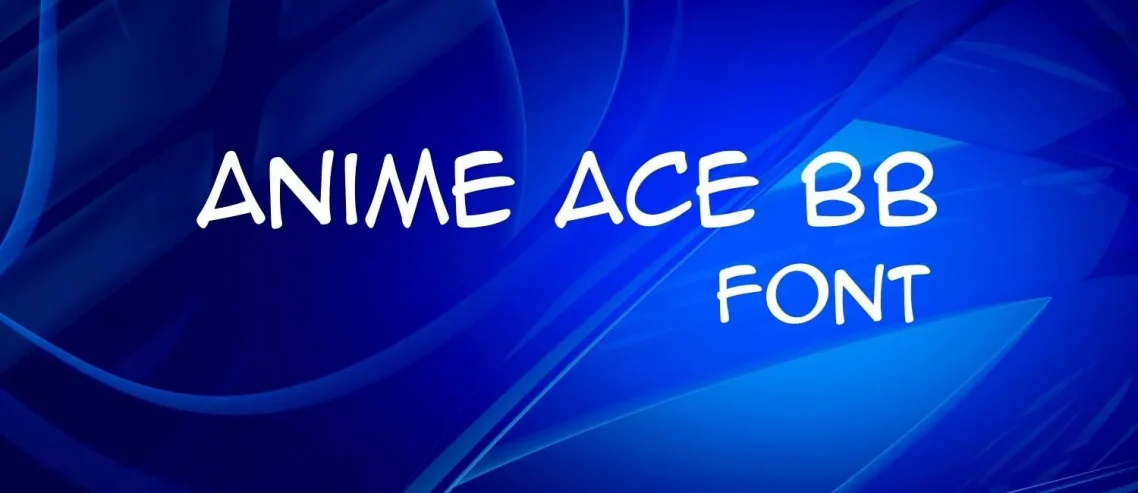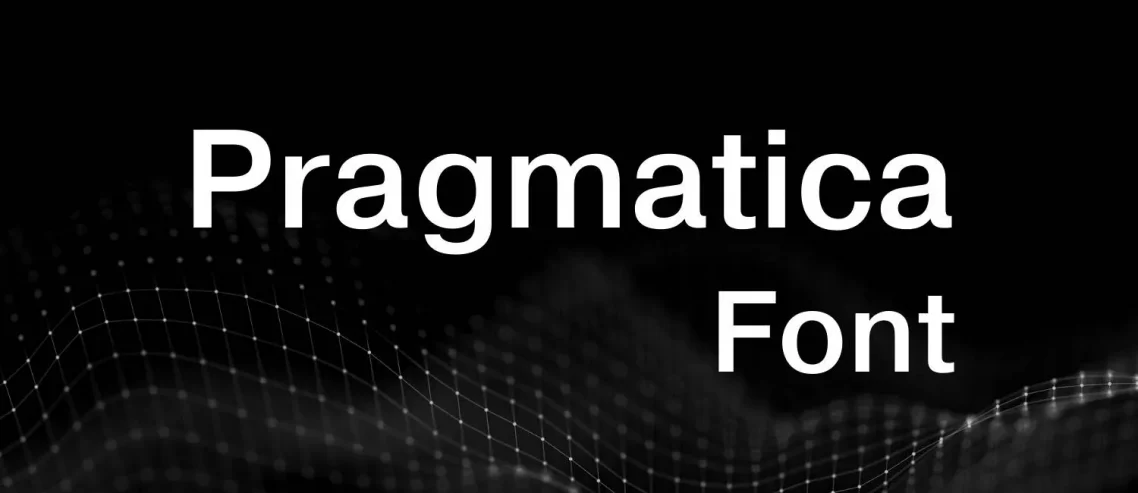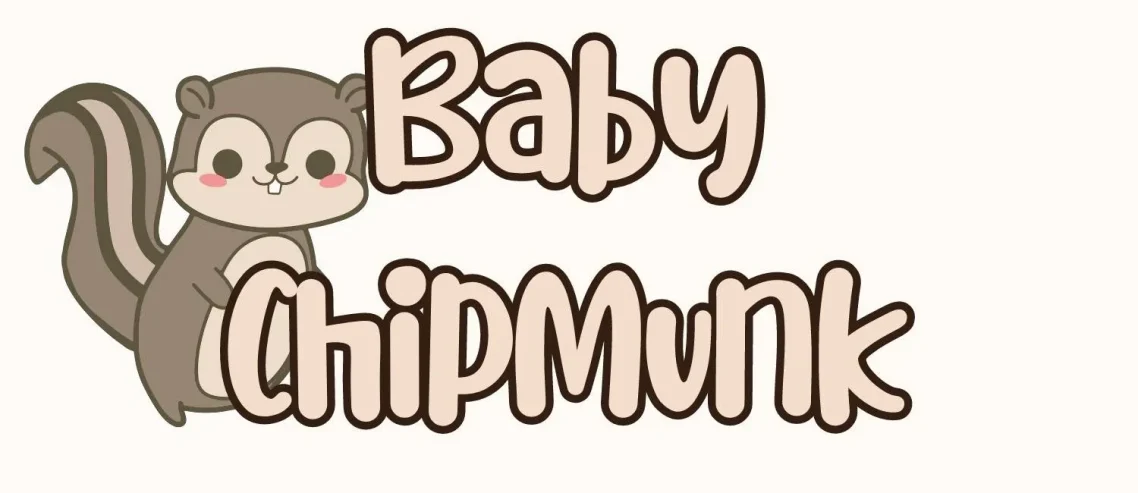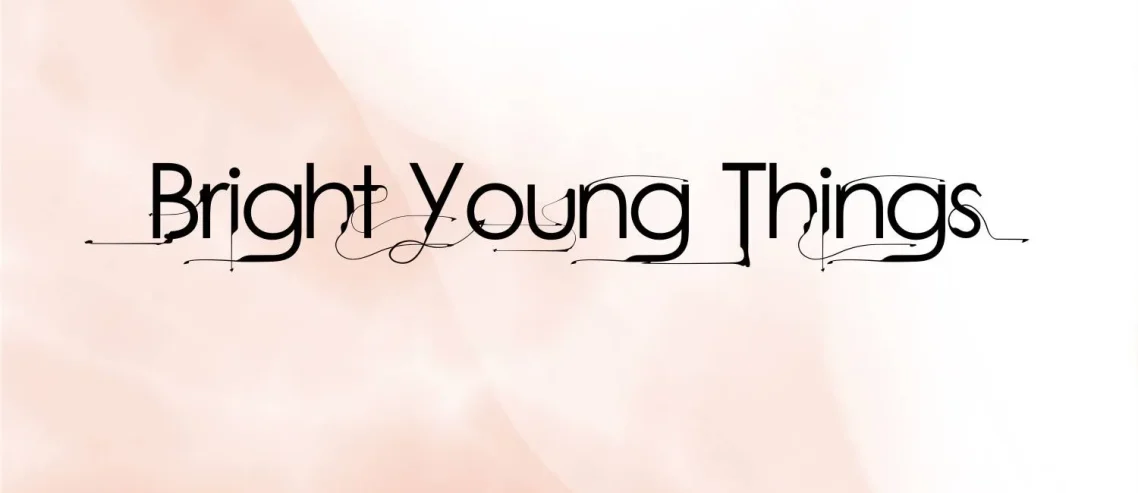
Encanto Font Free Download
Encanto Font is a decorative font that was created in 2010. It was designed to be used for headlines, titles, and other display purposes. This Font family includes 3 different styles: Regular, Italic, and Bold. Encanto Typeface is a popular choice for headlines and titles because of its unique design. The font is inspired by …
Baby Chipmunk Font Free Download
Baby Chipmunk Font is an elegant and unique typeface in the fancy font family. This playful typeface was developed by Stefani Tri Rosa and it was publicized by Stefani Letter Foundry. She was very much inspired by squirrels is the reason she named it Baby Chipmunk. The modern and decorated characters of this typeface are …
Bright Young Things Font Free Download
Bright Young Things Font is a attractive typeface that comes from the fancy font family with modern characters. This typeface was constructed by Hugo Beyts. The characters of this typeface have horizontal strokes at the end to give an appealing appearance. This typeface is comprised of a large character set which includes numerals, punctuations, uppercase …
Avengers Font Free Download
Avengers Font is a display typeface that was created by comic book artist and author, John Romita Sr. in collaboration with Marvel Comics. This Typeface was inspired by the lettering of the Avengers comics and has been used extensively in Marvel’s branding. This Font is available in two weights, Regular and Bold. It includes uppercase …
Pragmatica Font Free Download
Pragmatica Font is a stylish typeface that belongs to the Sans- Serif Font family. This typeface was constructed by the combined hard work of Manvel Shmavonyan, Olga Chaeva, Alexander Tarbeev, Vladimir Yefimov, and Vladimir Andrich from Paratype Foundry. You can combine this magnificent typeface with persian font to give a distinct appearance to your project. …
Anime ace bb Font Free Download
Anime ace bb Font is an anime font that was created in 2004. It contains upper and lowercase letters, numbers, and some symbols. It is mostly used for titles and headings, but can also be used for body text. It is free for personal use. This Font is a popular font among anime fans. It …